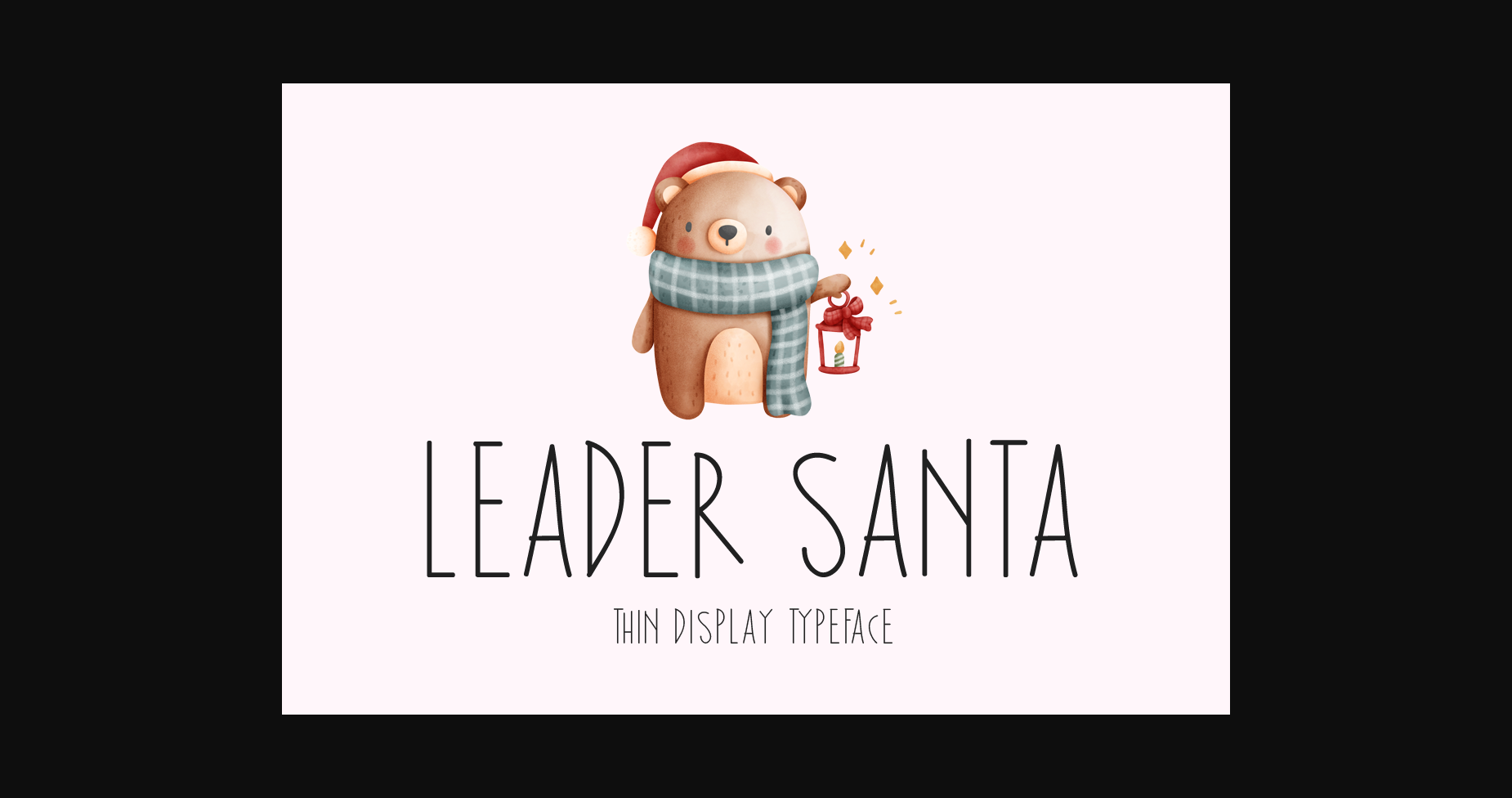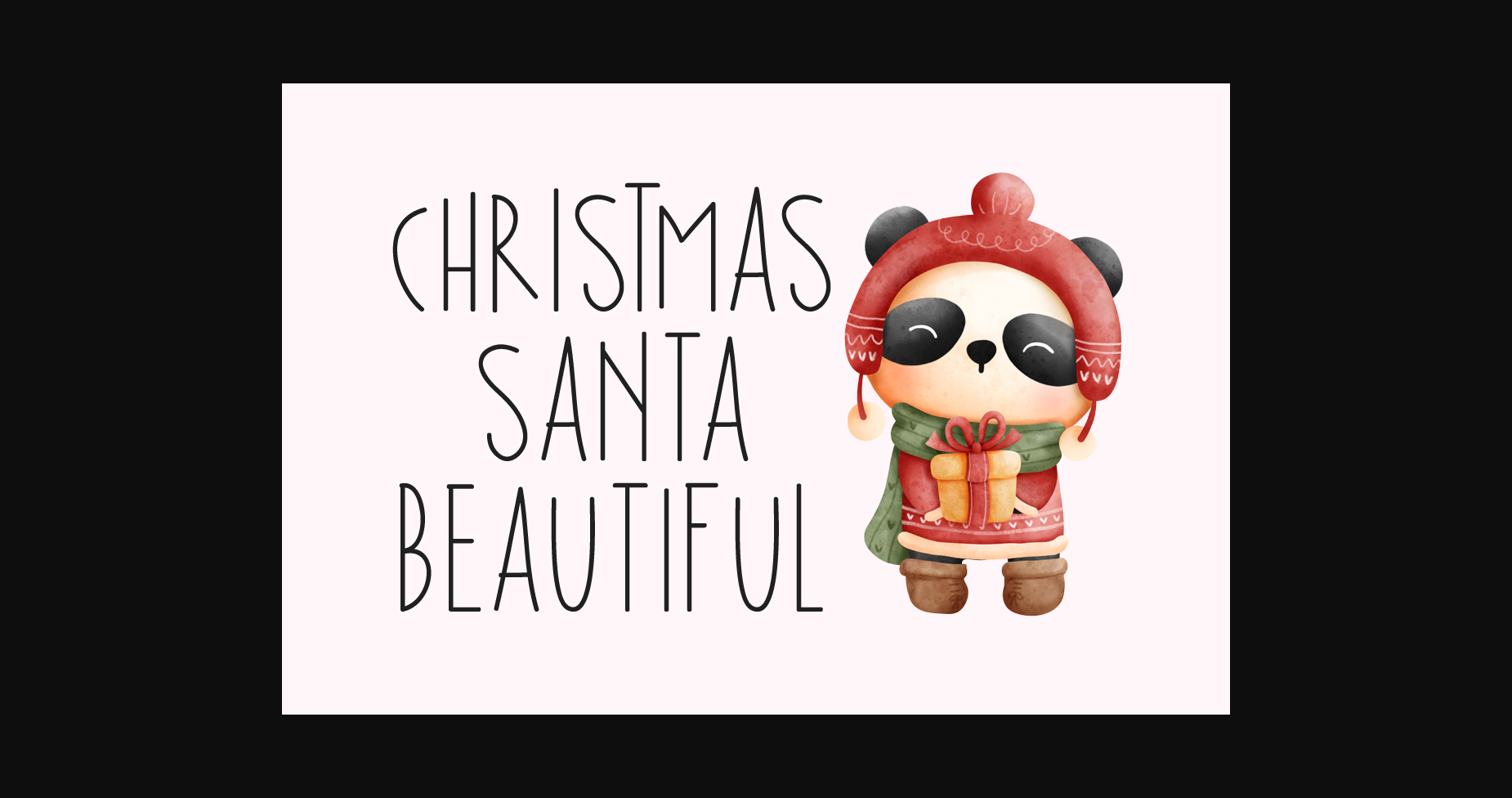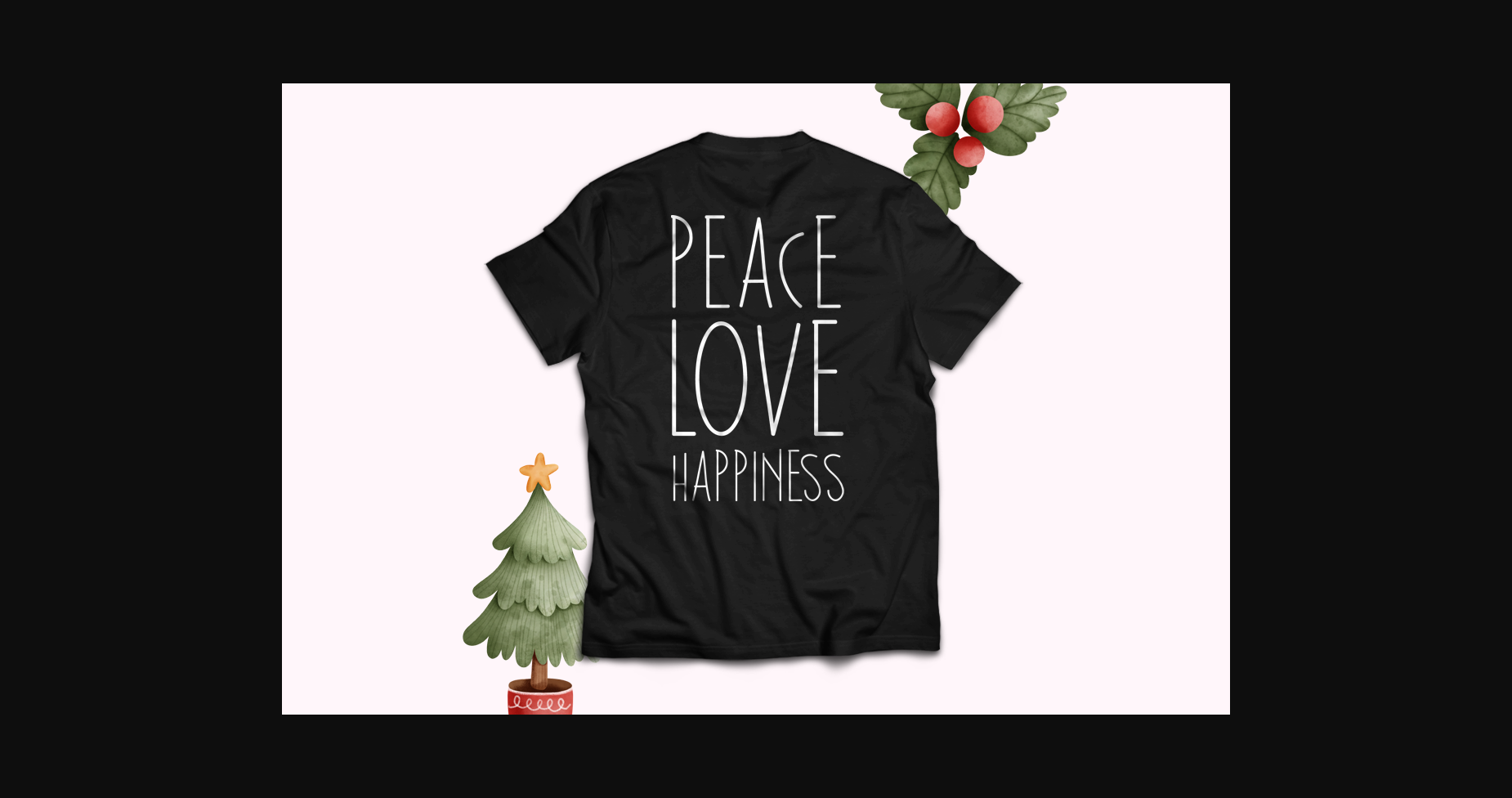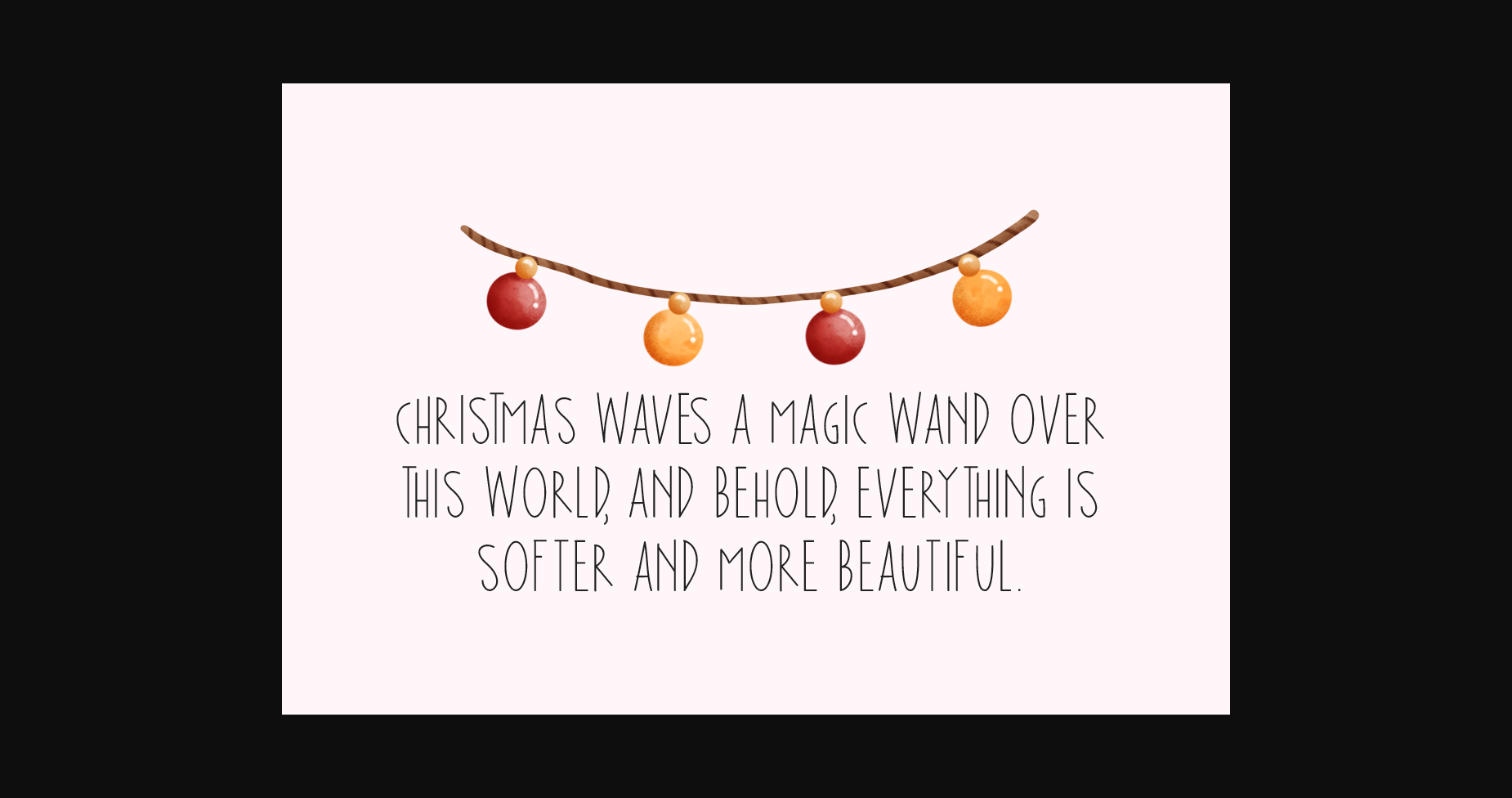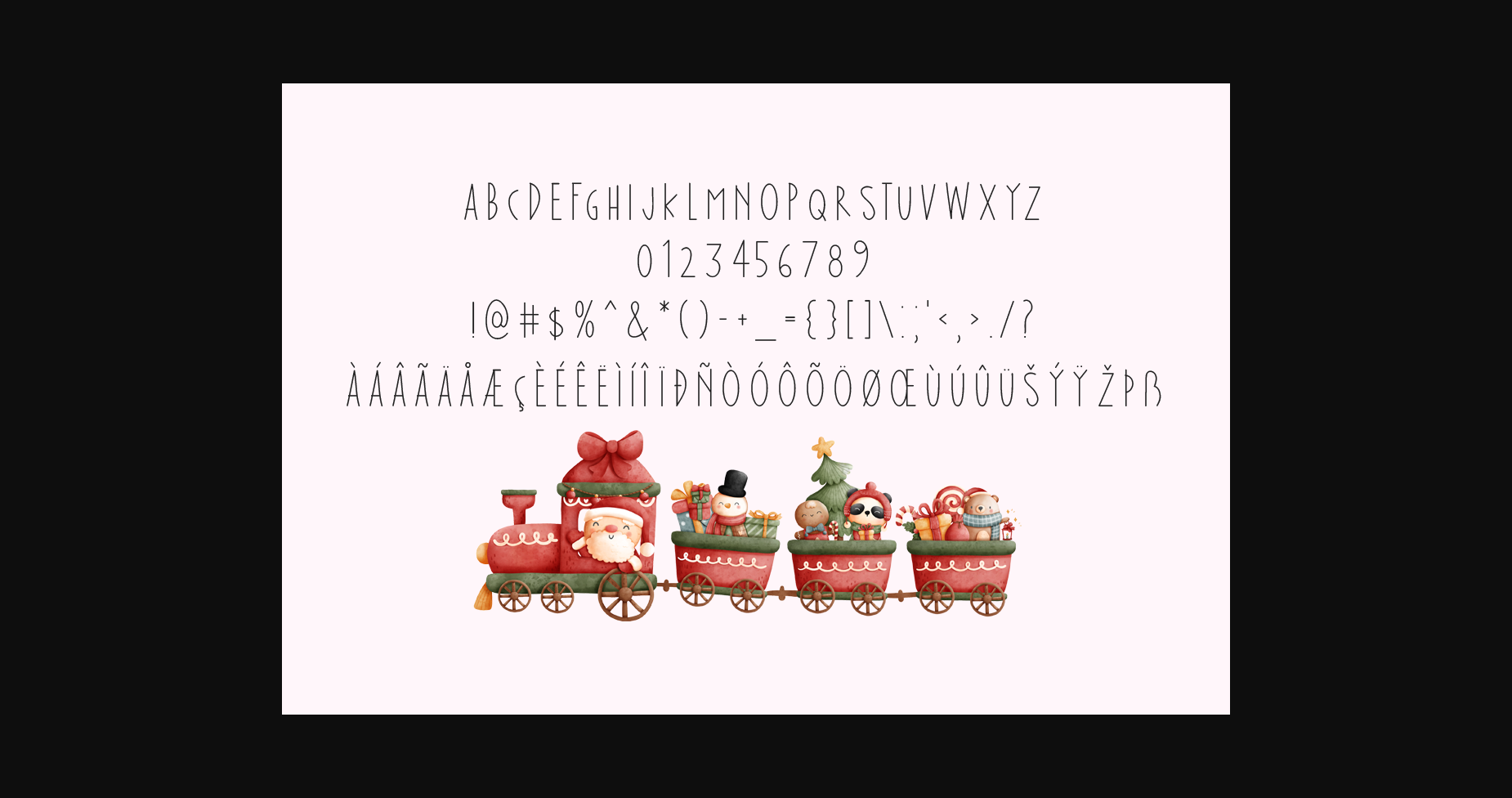
About Leader Santa Font
Leader Santa is a minimal and neat sans serif font. It can easily be matched to an incredibly large set of projects, so add it to your creative ideas and notice how it makes them stand out!